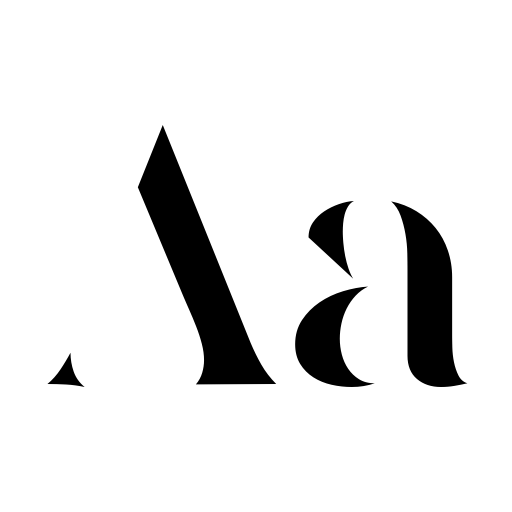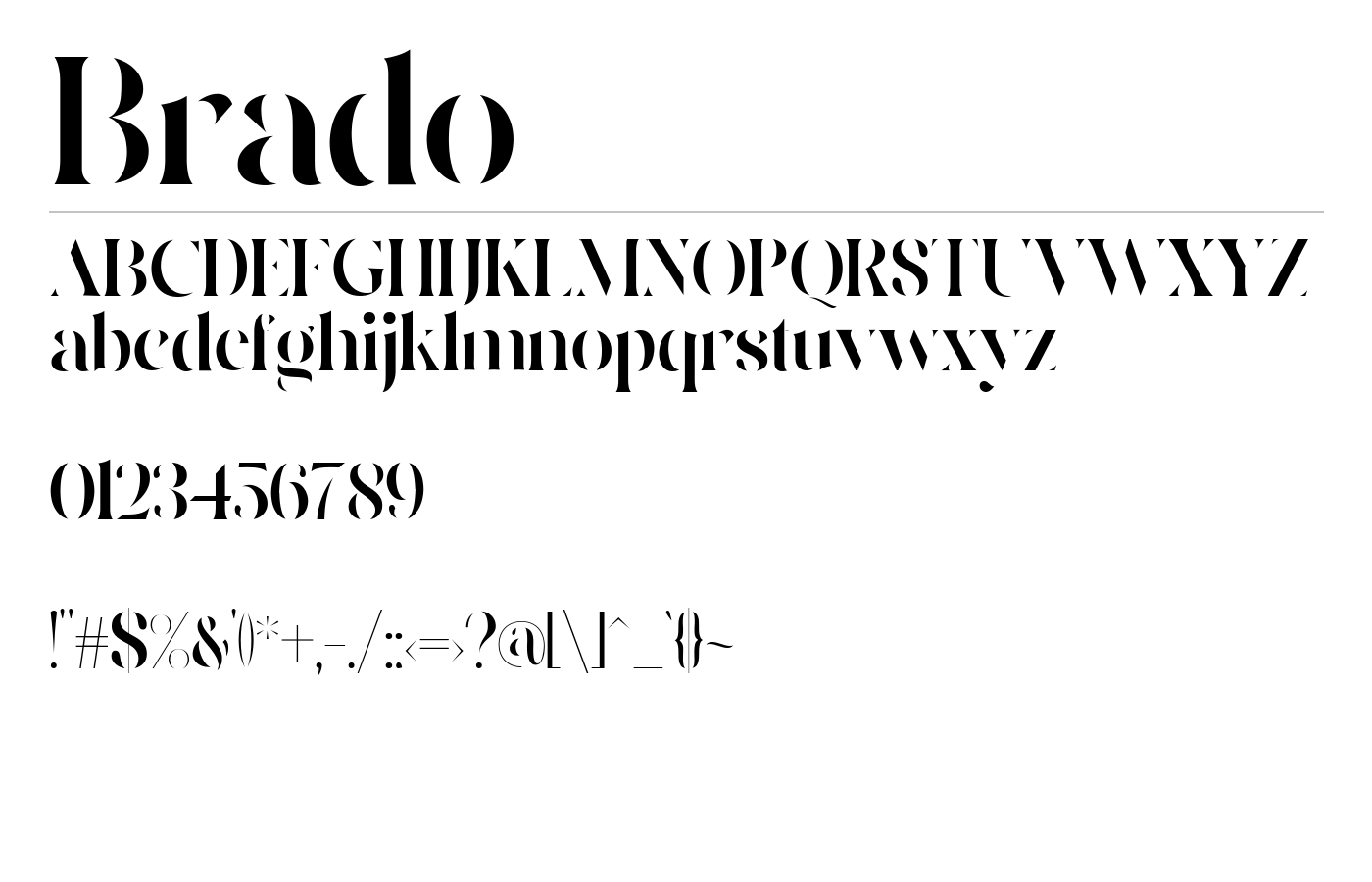
Brado is a striking serif font with a modern Didone style, characterized by its high contrast between thick and thin strokes and sharp, delicate serifs. Its elegant, condensed letterforms and artistic cuts give it a sophisticated and stylish feel, making it ideal for luxury branding, high-end editorial headlines, and fashion-focused designs. This font works best in large sizes where its dramatic details can shine, adding a bold yet refined statement to logos, posters, and upscale packaging.
Brado Font
About Brado Font